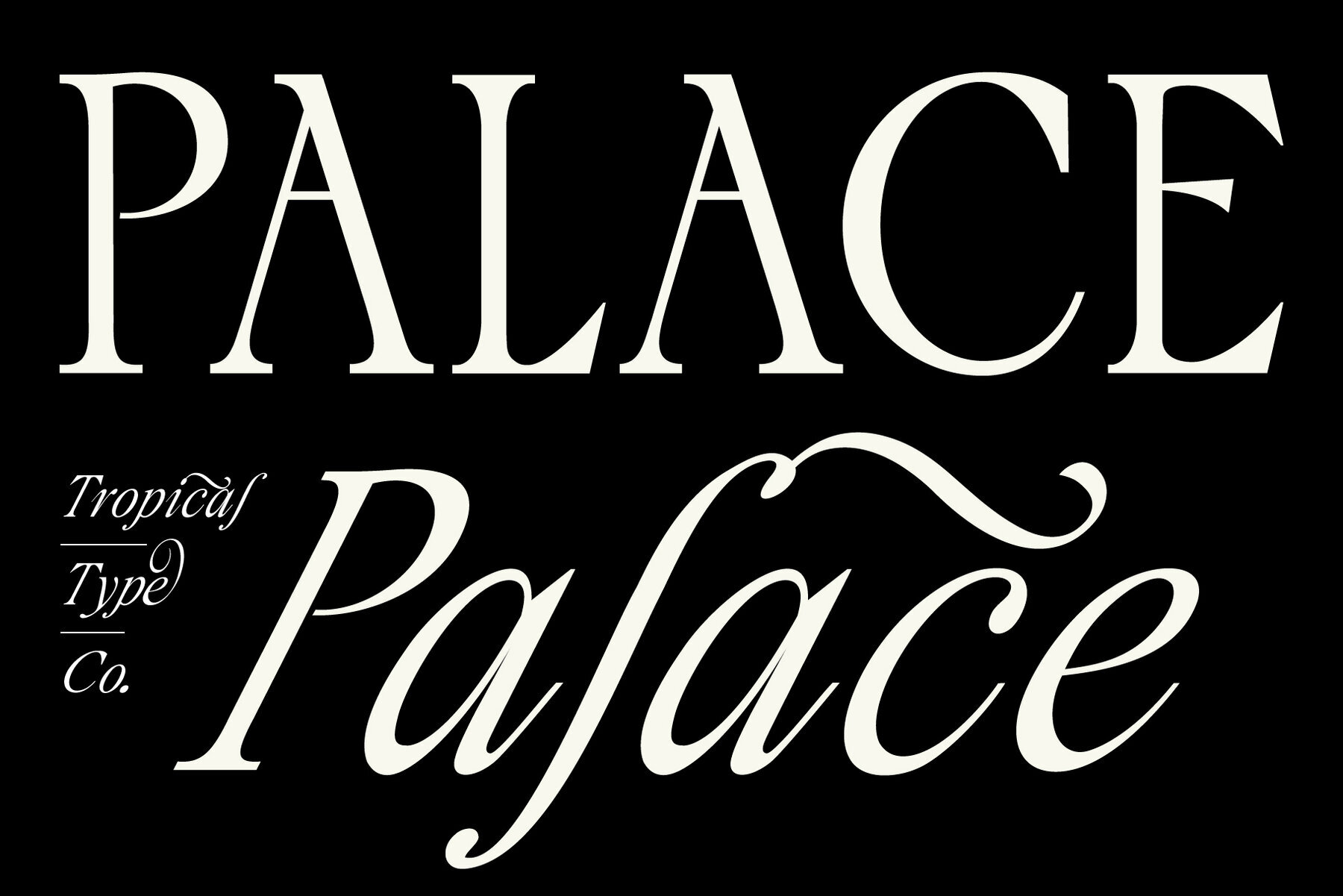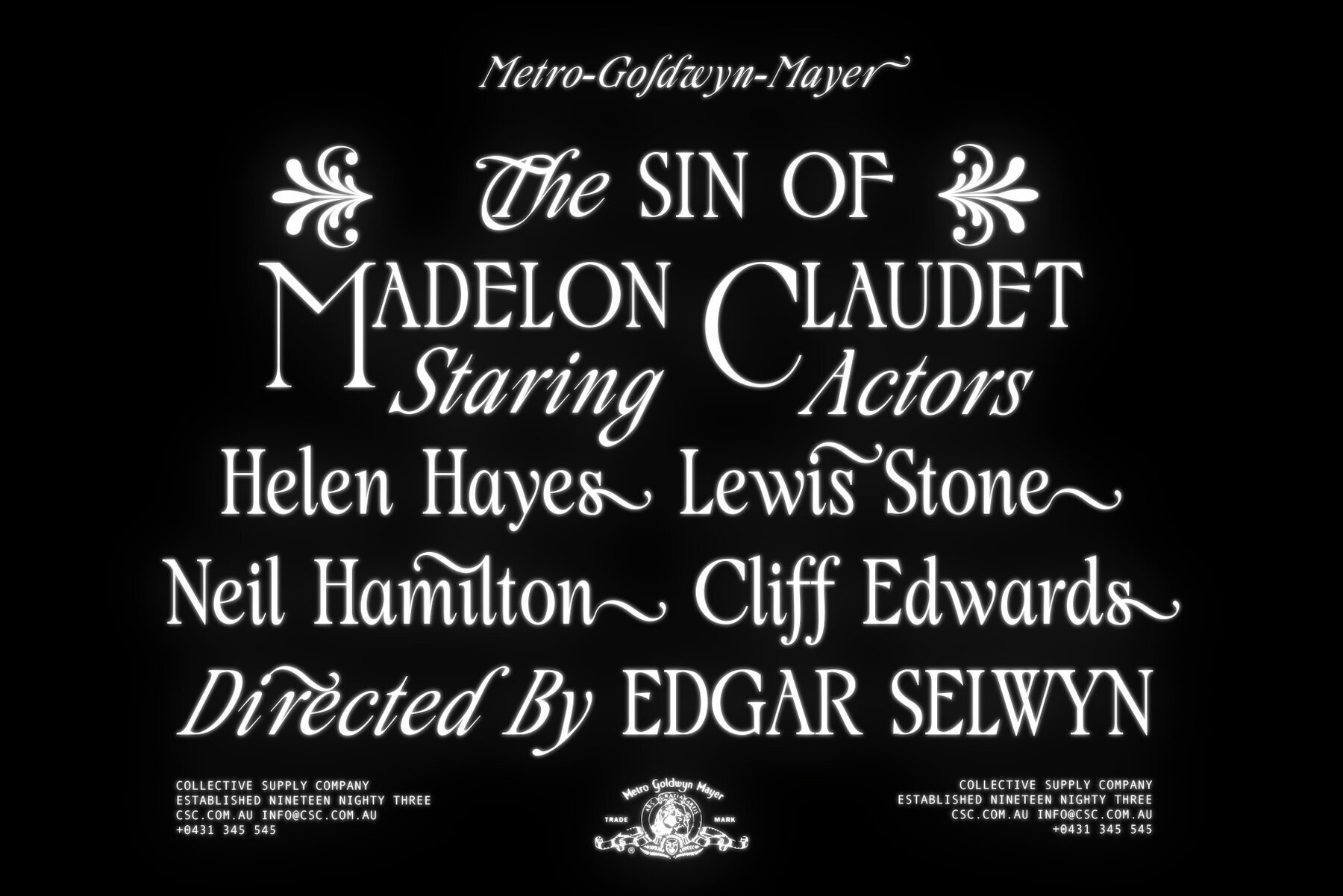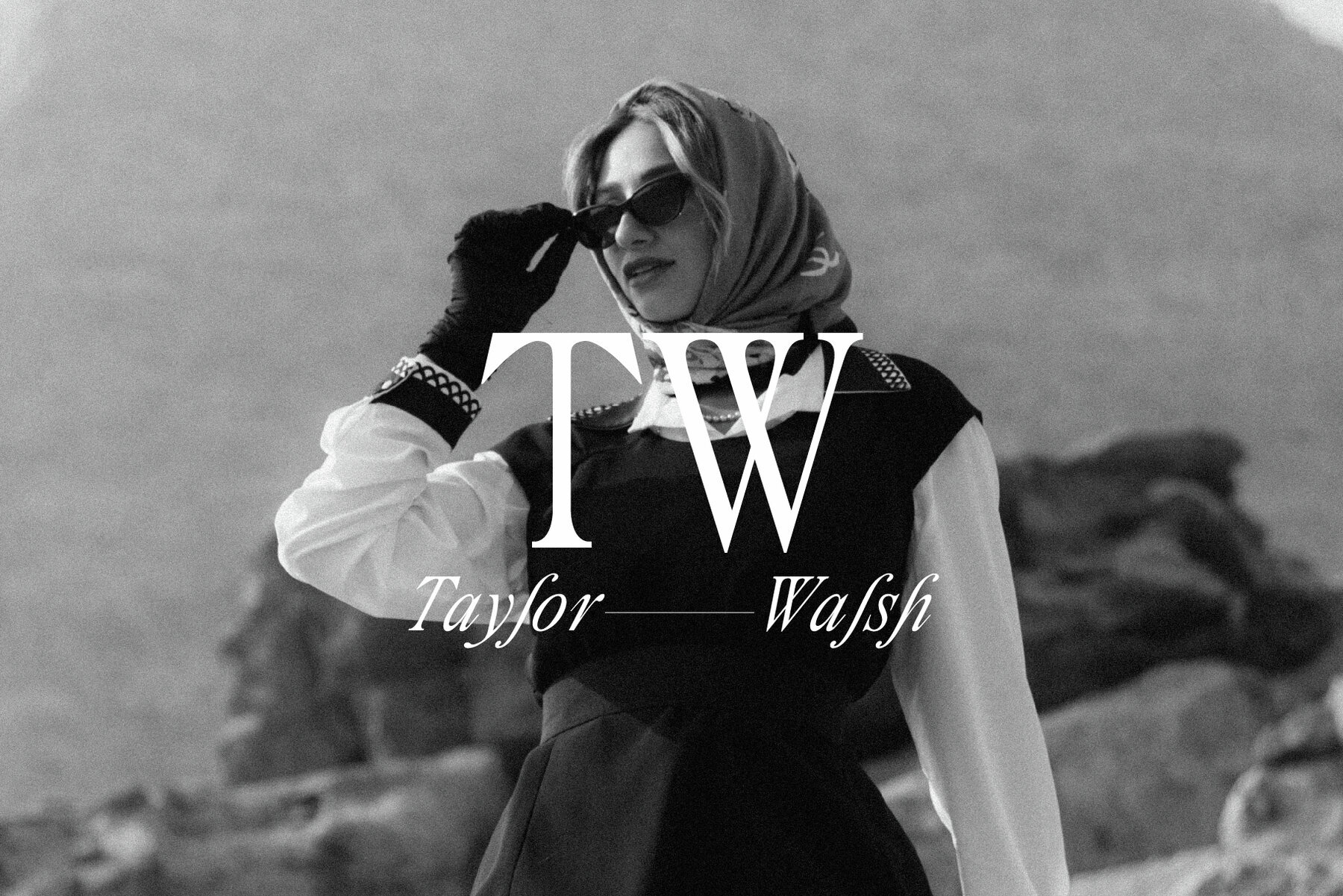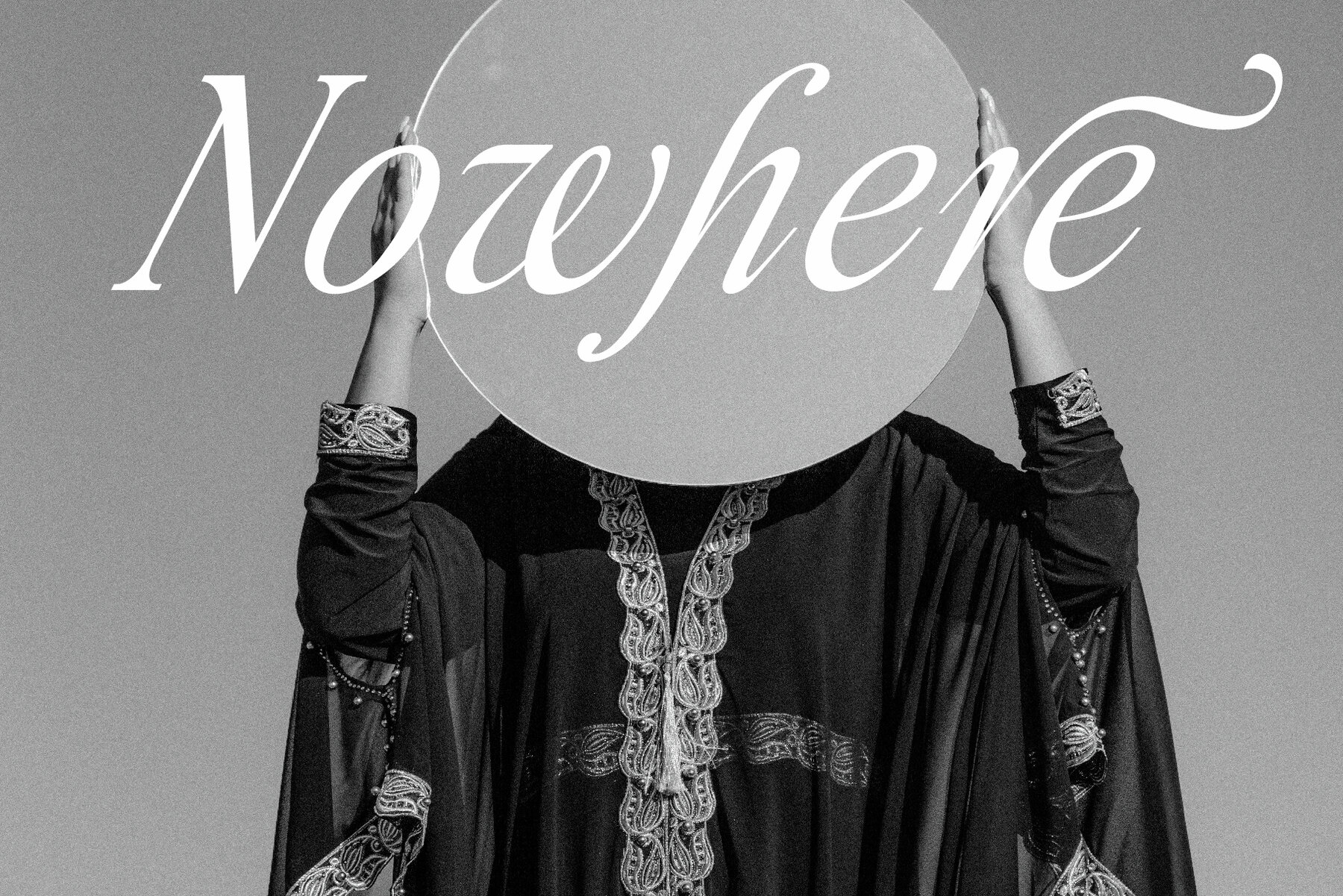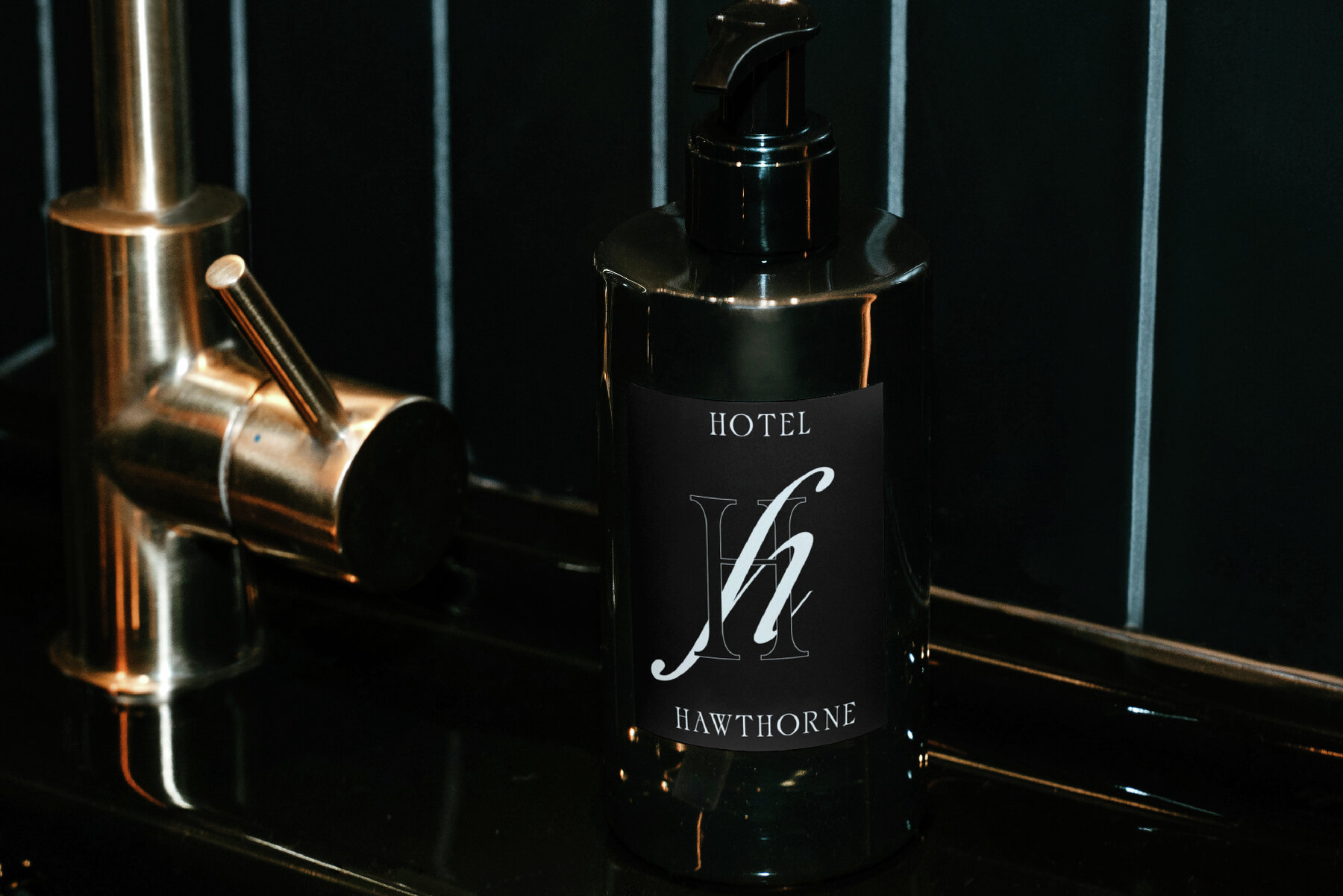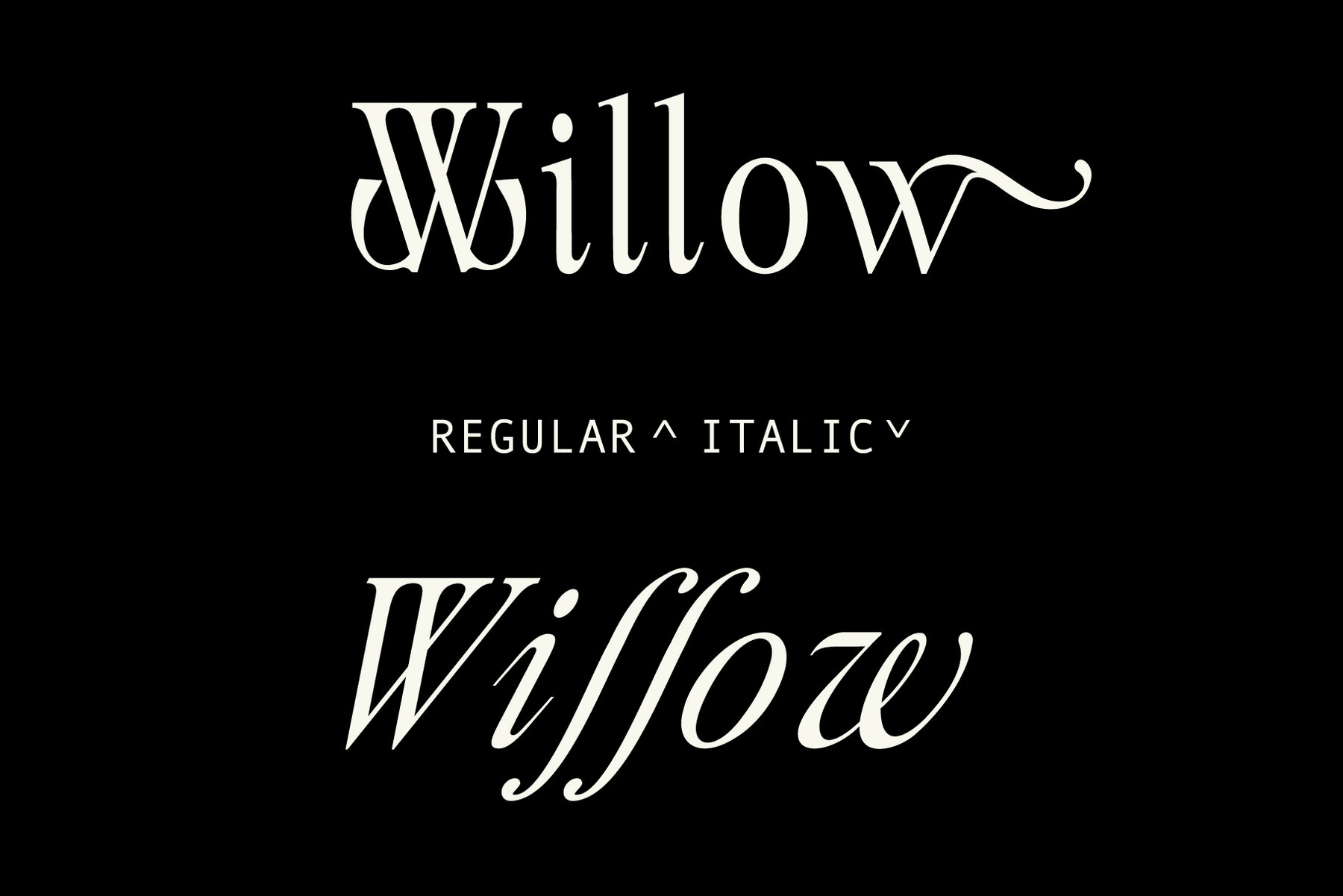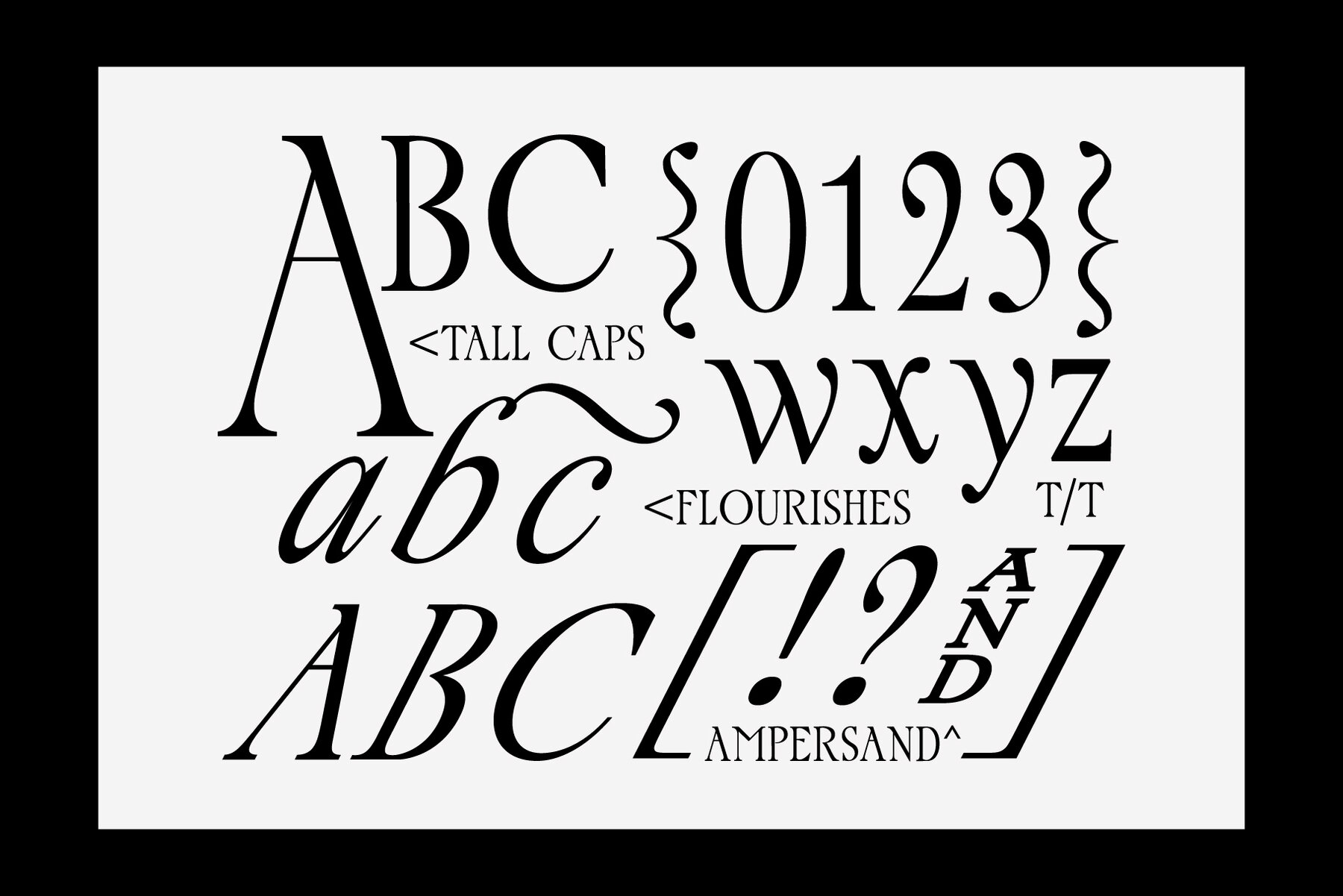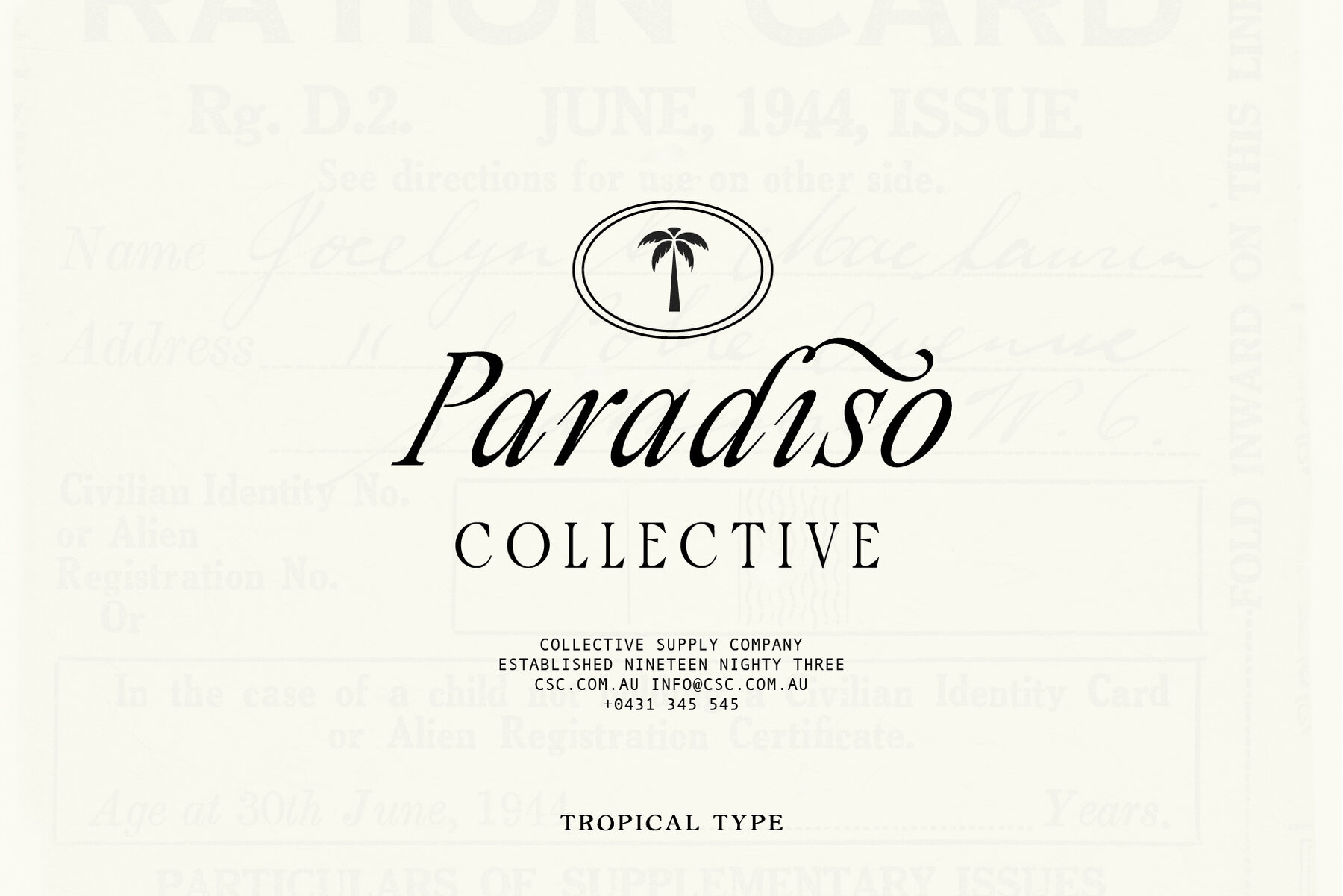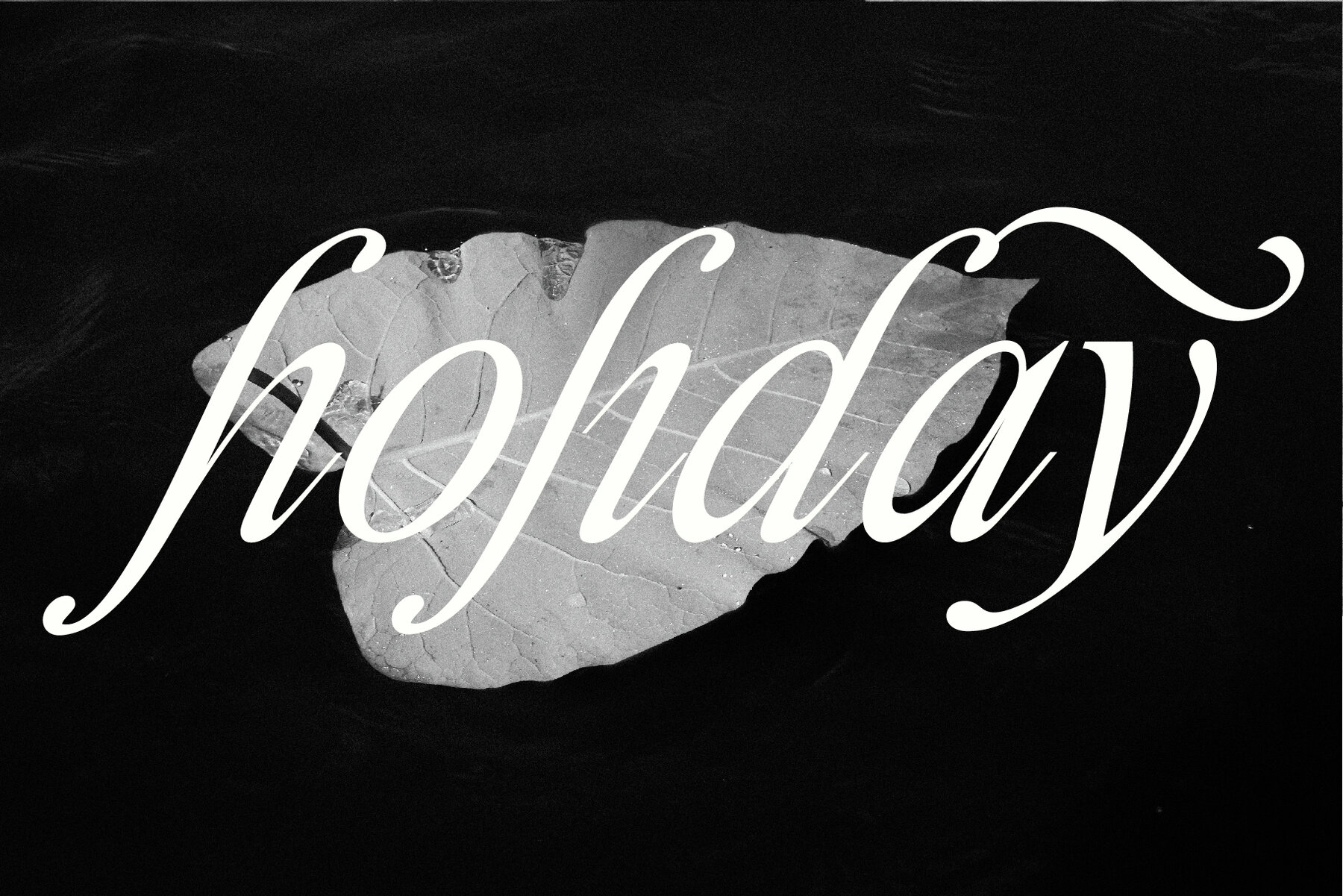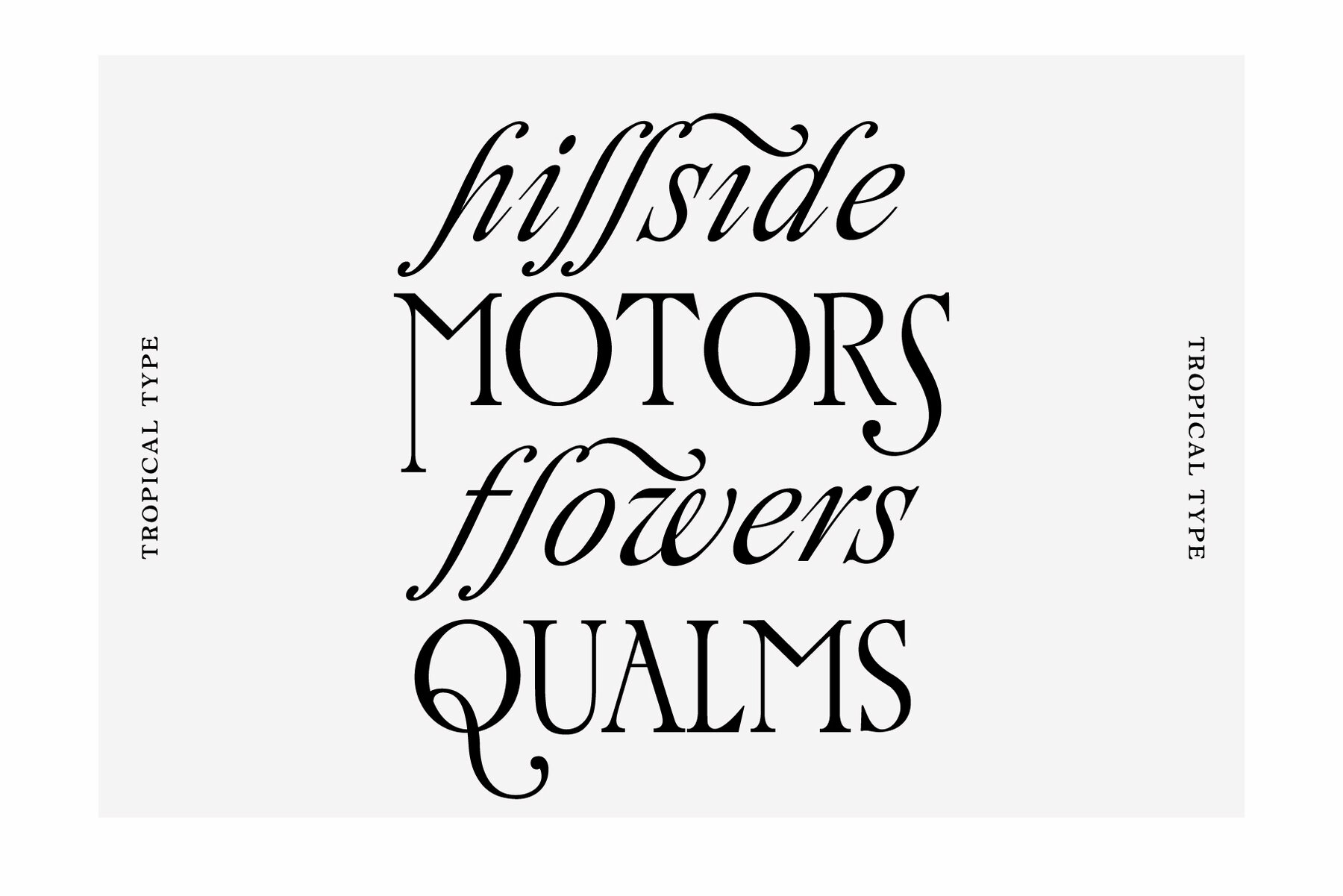
Palace Font
Palace is a classical serif typeface rich in flourishes and alternates, perfect for a sophisticated vintage aesthetic. Featuring tall capital letters, italics, and catchy ampersands, it brings a chic, timeless elegance to your design projects. Dive into the glyphs panel to discover a wealth of characters and stylistic options that cater to all your typographic needs.
This versatile font also supports a wide range of non-English characters, making it suitable for multilingual usage. Whether you're designing for print or digital platforms, Palace provides the flexibility and elegance required to produce refined, high-quality designs.